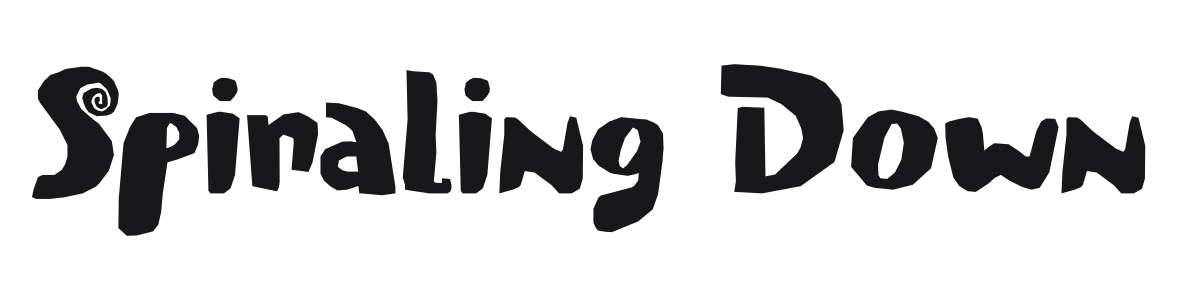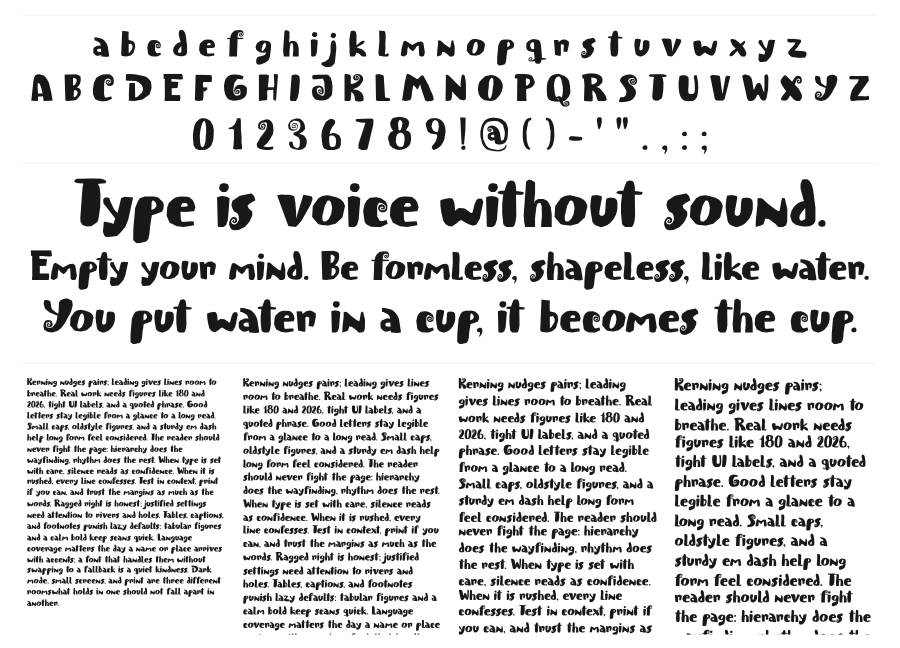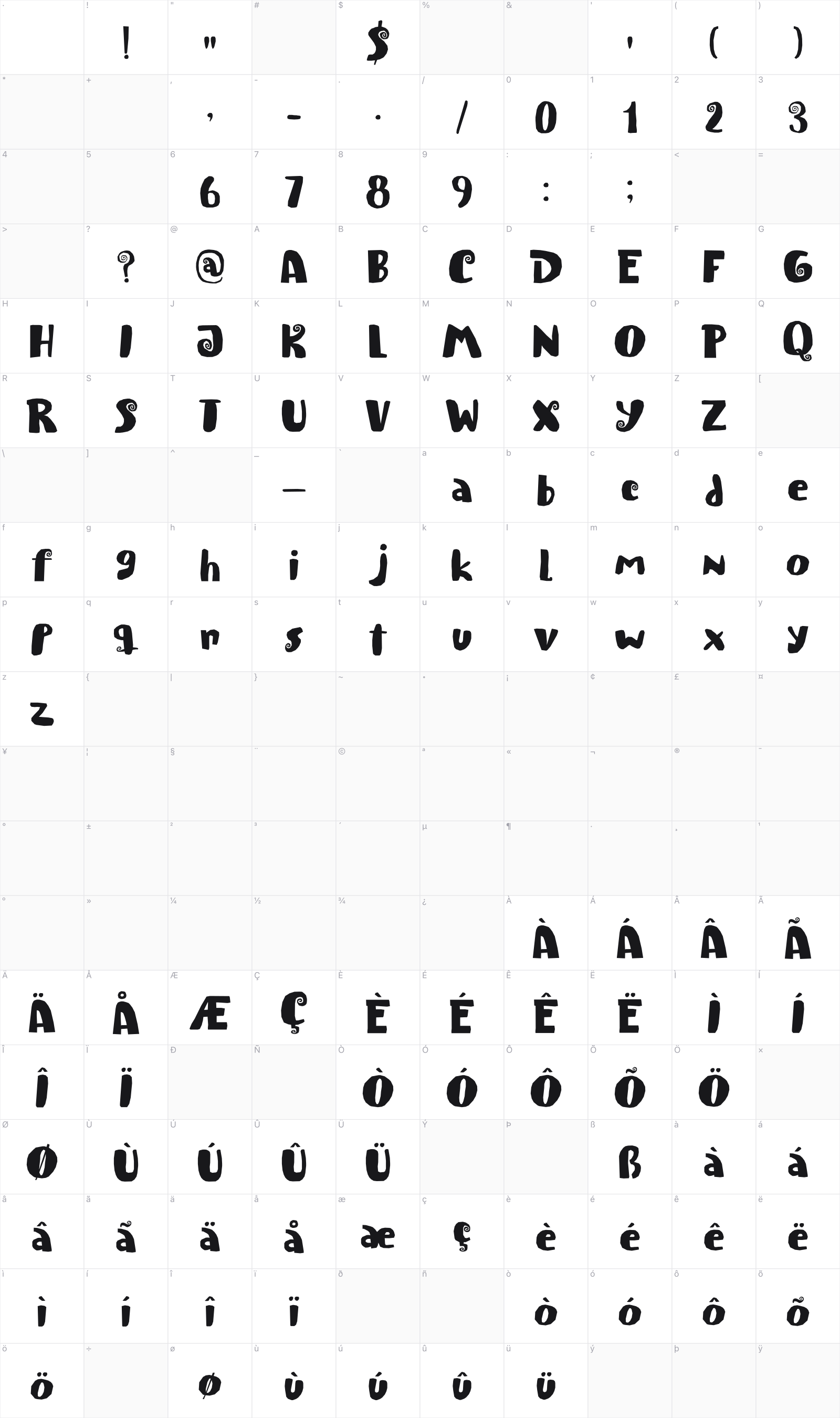
Spiraling Down
Spiraling Down is a bold, hand-drawn display font with thick strokes and distinctive spiral curls at certain terminals that give it an instantly playful personality. The irregular, slightly wobbly construction feels spontaneous rather than mechanical. It works loudly at headline sizes for anything that needs energy and a sense of humor.